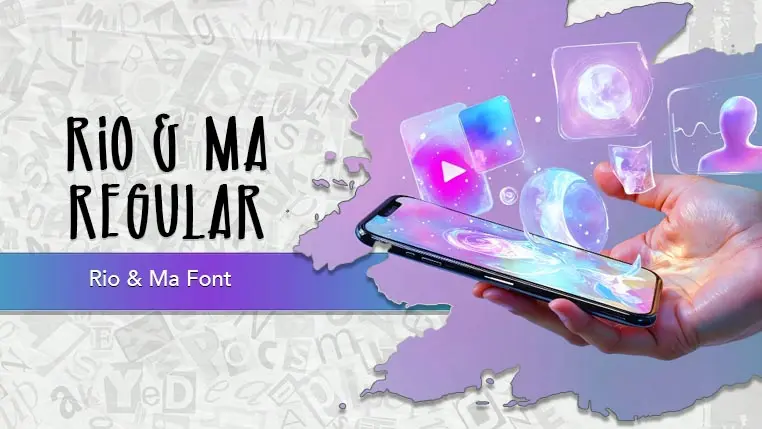
The Rio & Ma font family may be ideal for you if you enjoy working on an artistic design project. The lively, expressive look of this typeface, which was created by Lemoncraft.s, makes it ideal for Instagram quotes, Pinterest pins, YouTube thumbnails, and other social media content where a unique and engaging font can stand out. Adds a charming and personal touch to greeting cards, wedding invitations, birthday invites, and other personalized stationery. and other light-hearted visual projects.
Regular are the one primary font styles of the Rio & Ma font family. You may build dynamic, visually appealing text layouts with the distinct flair that each style offers. With crisp, readable lines and a relaxed tone.